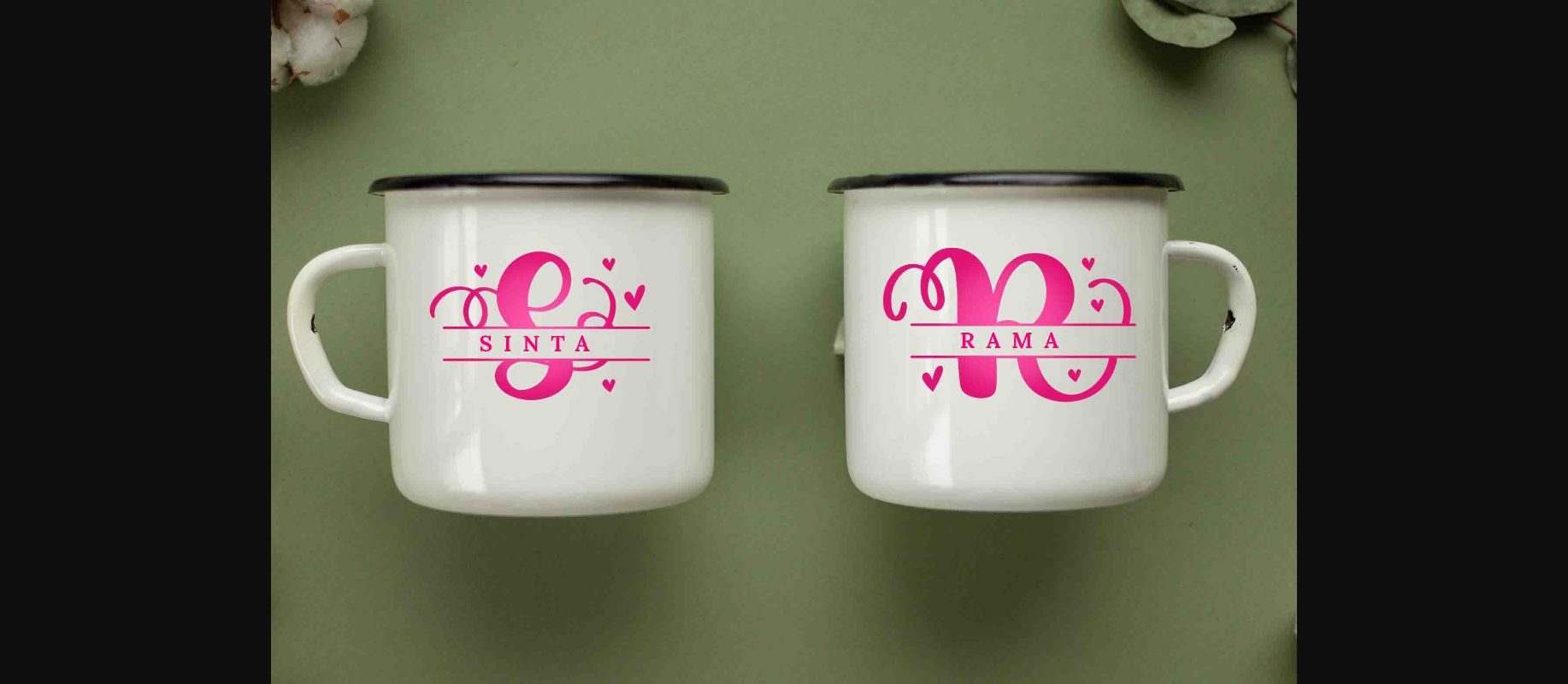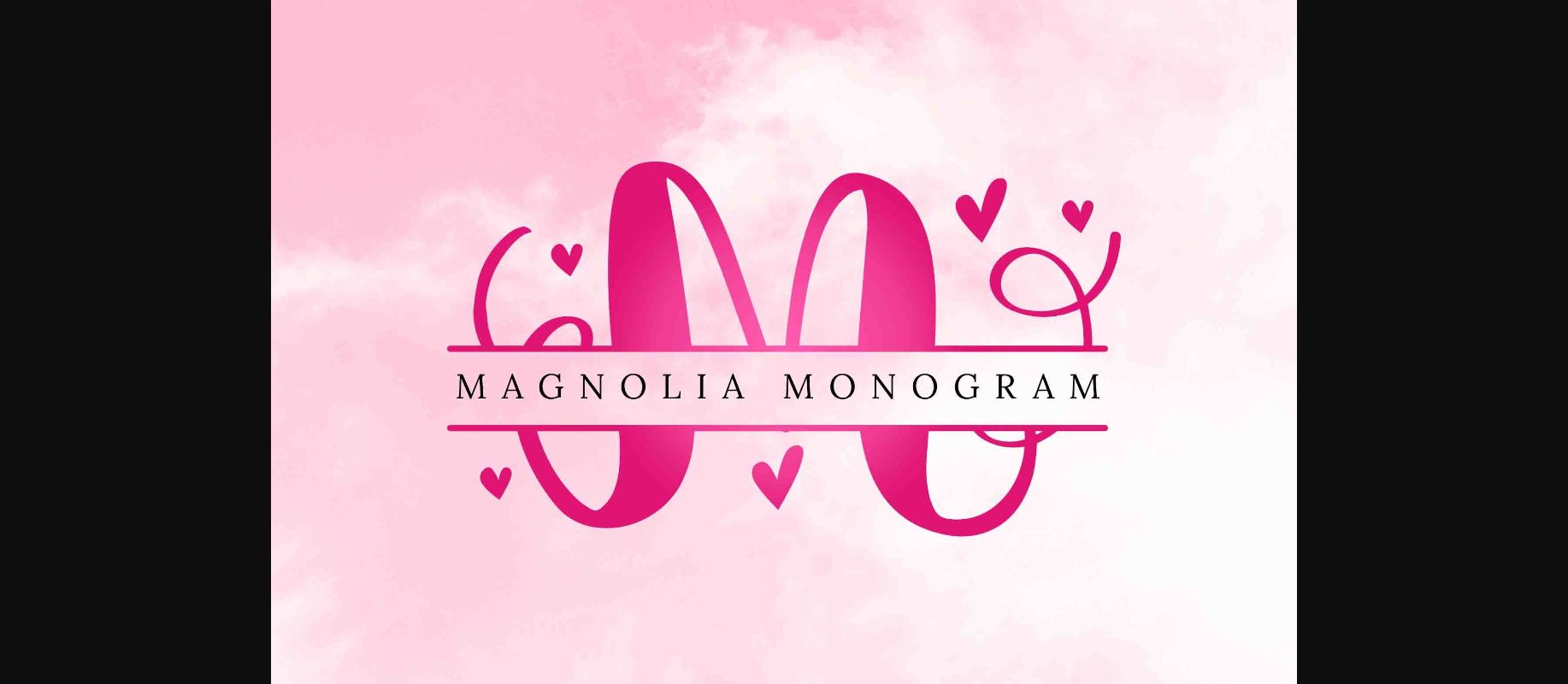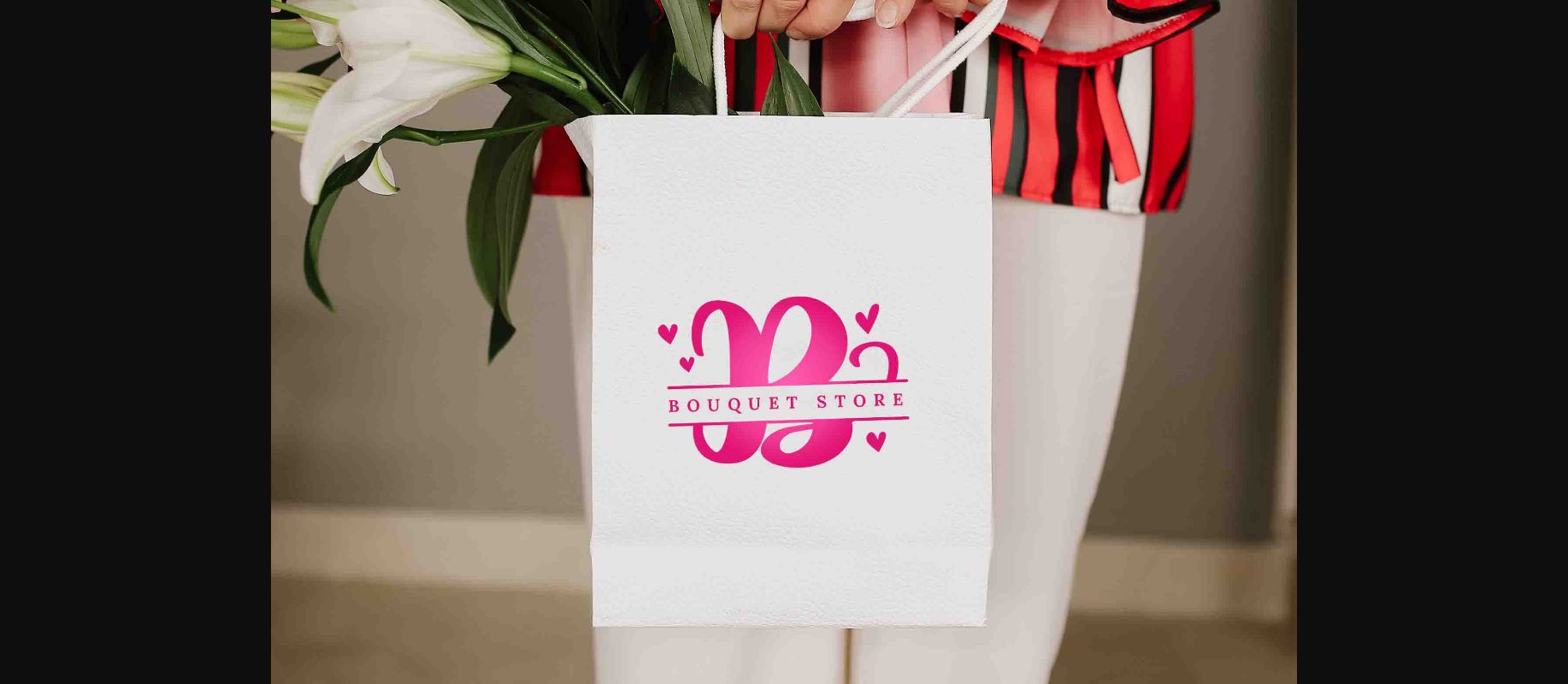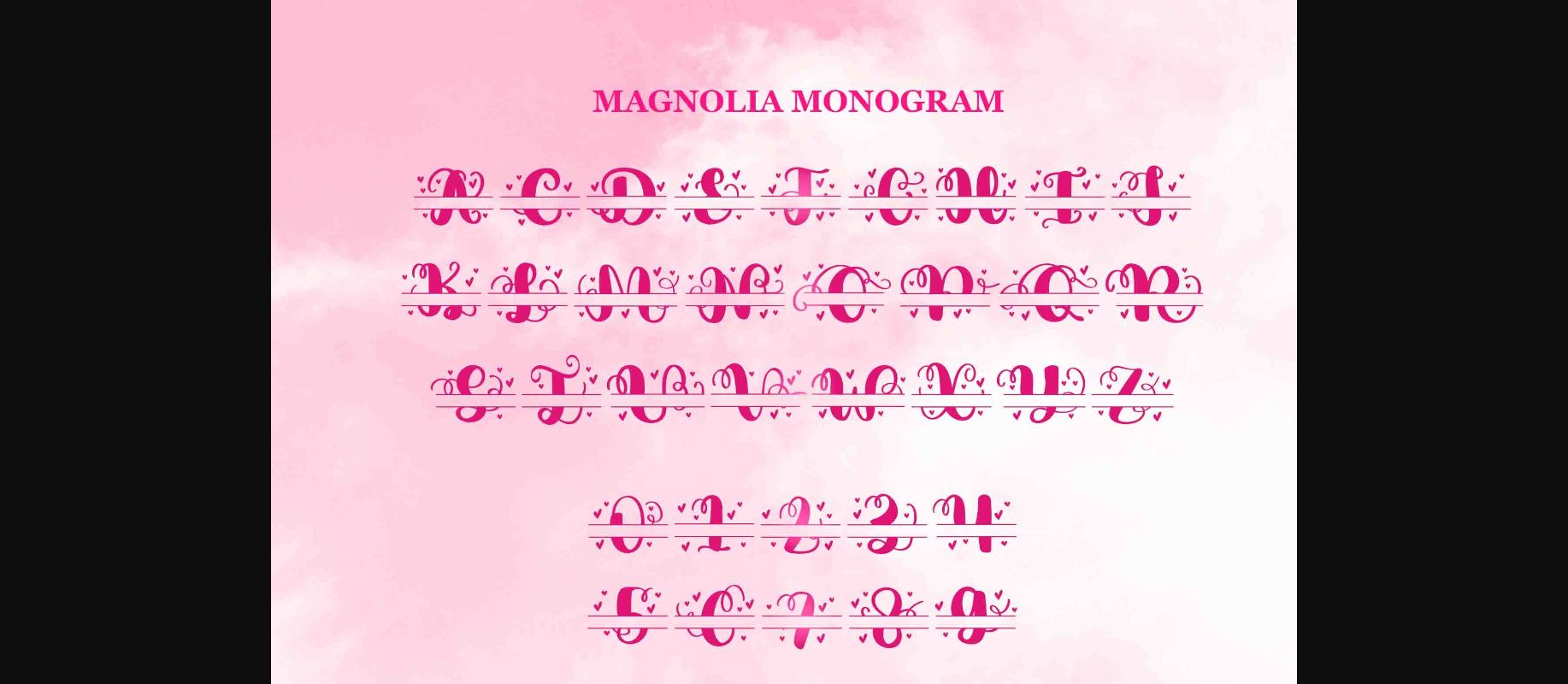
Magnolia Monogram Font
About Magnolia Monogram Font
Magnolia Monogram is a decorative writing font that is beautiful and romantic, the ornaments that decorate each letter are the reason why this font is one of your favorite fonts that are worth buying. Suitable for creating social media posts, designing mugs, t-shirts, tote bags, and much more